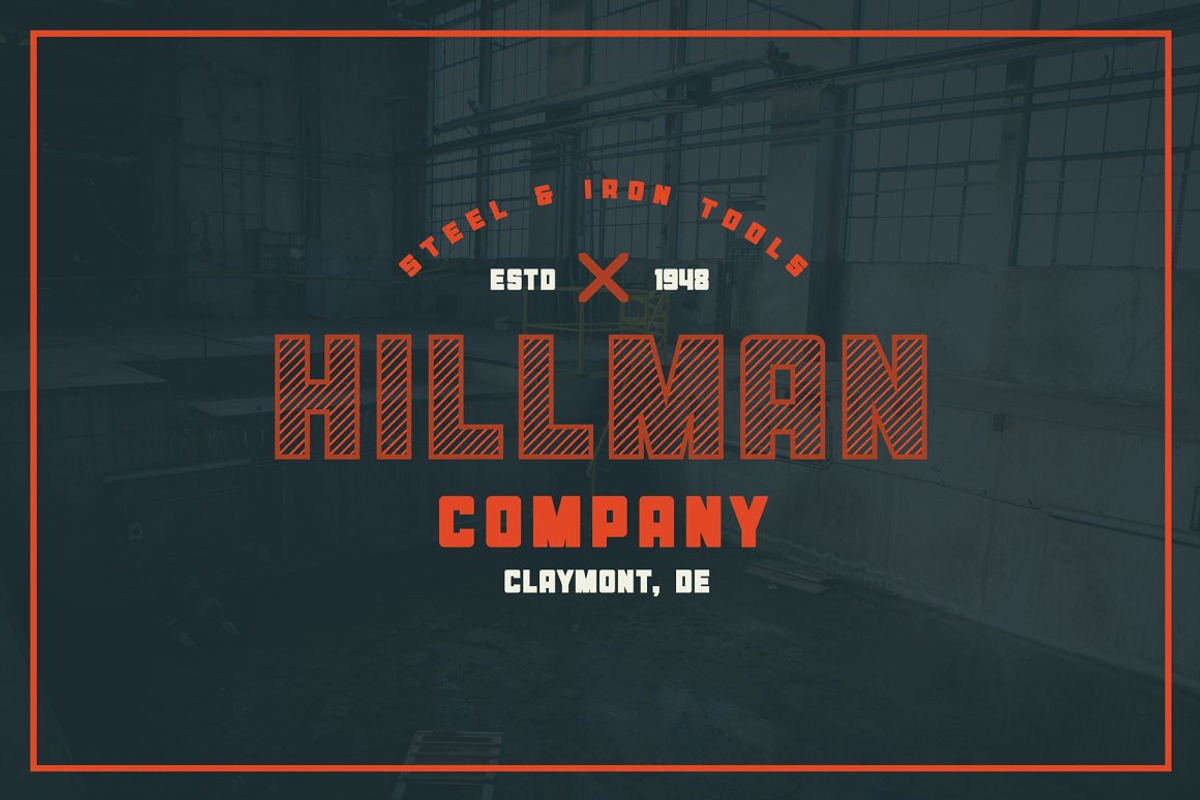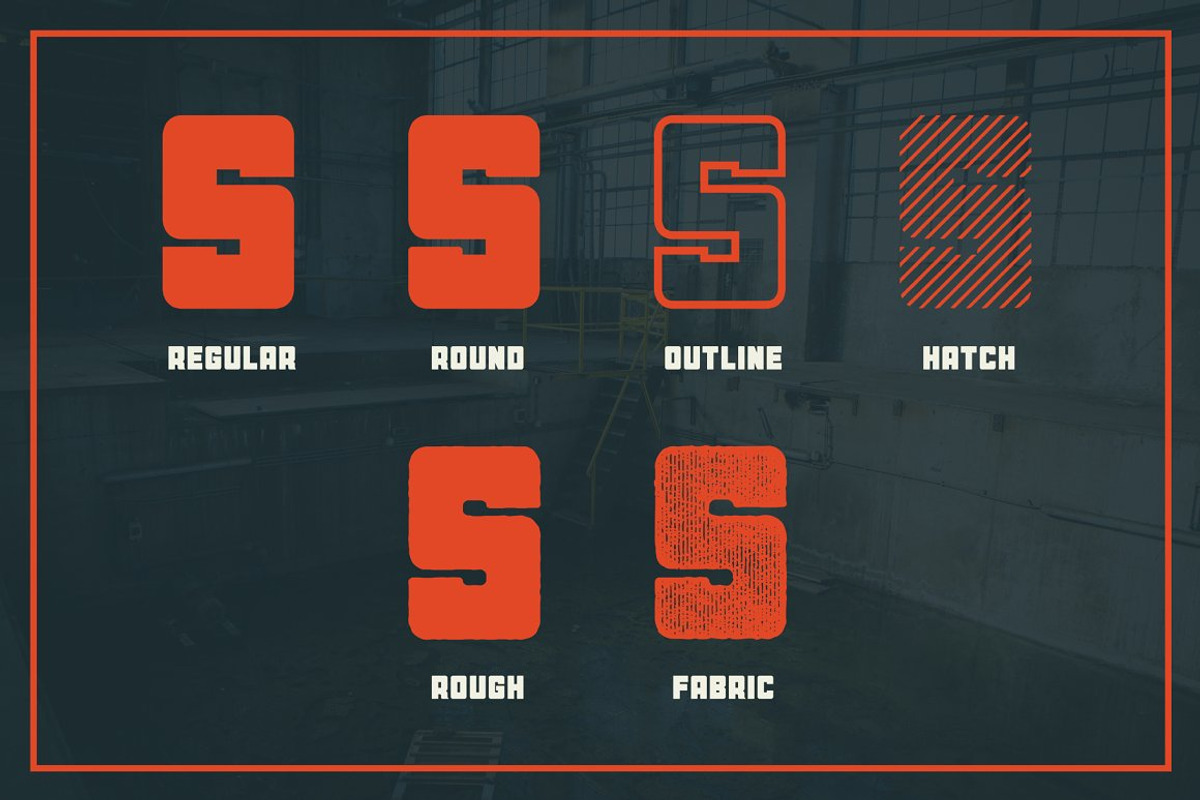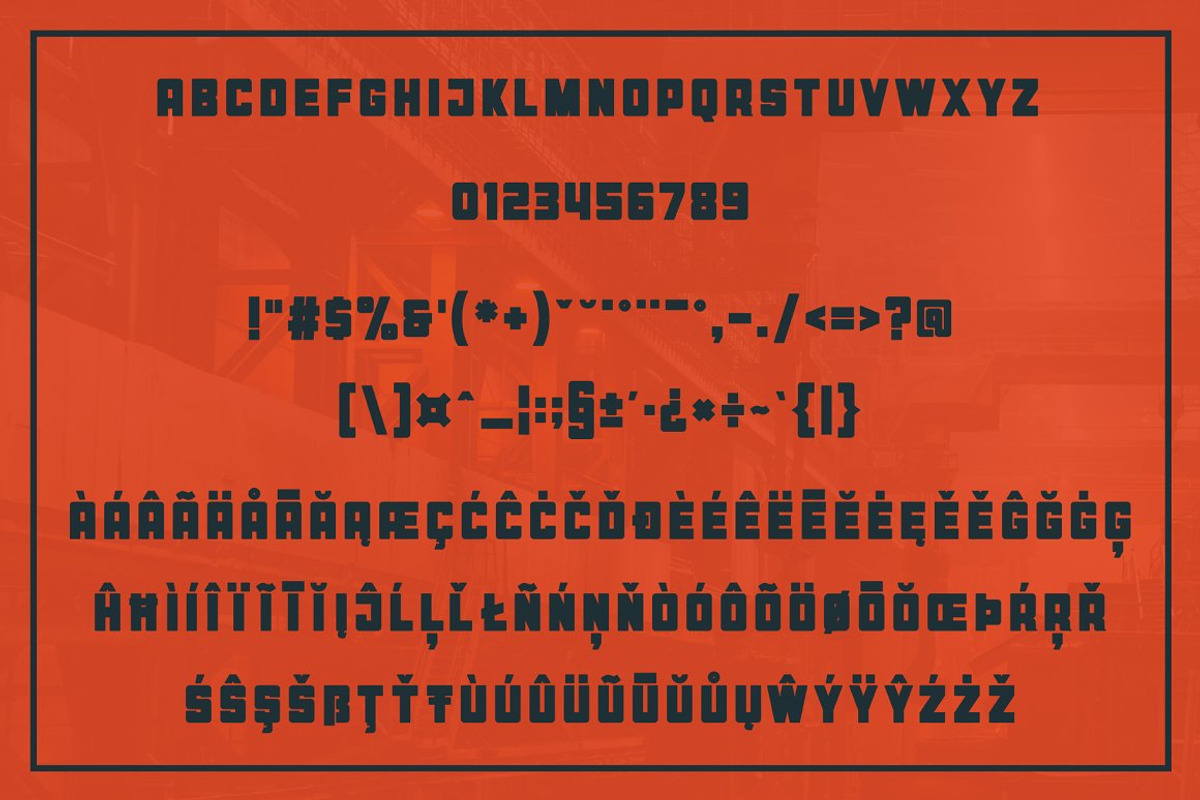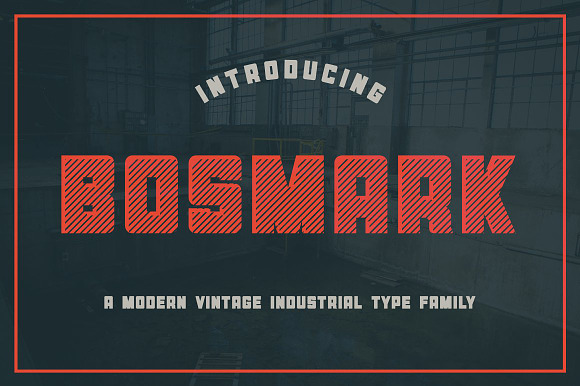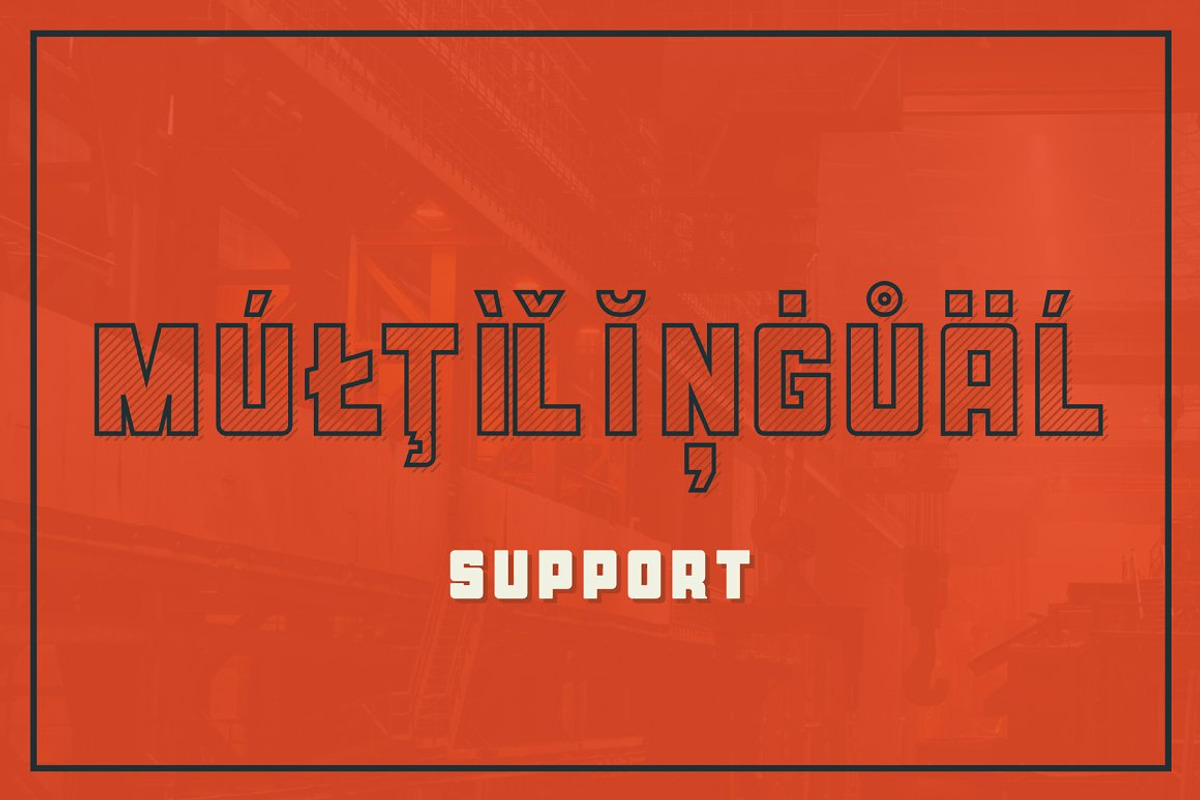
Bosmark Industrial Typeface
Bosmark is a bold, display font inspired by retro industrial signages and billboards. Six available styles give the possibility of different font combinations. Bosmark typeface is great for modern and retro style logos, badges, titling, posters, signboards and more.
Bosmark comes in six styles:
Bosmark Industrial Typeface by Bart Wesolek fits naturally into Branding, posters, packaging, typography.